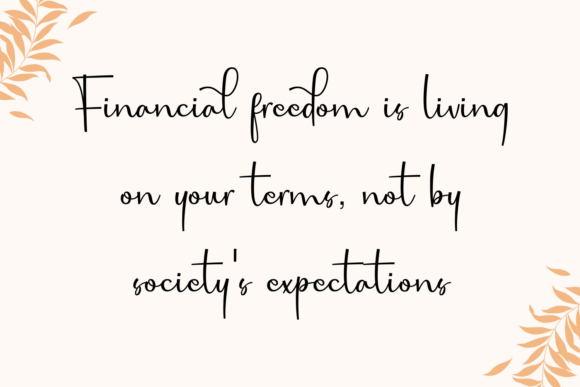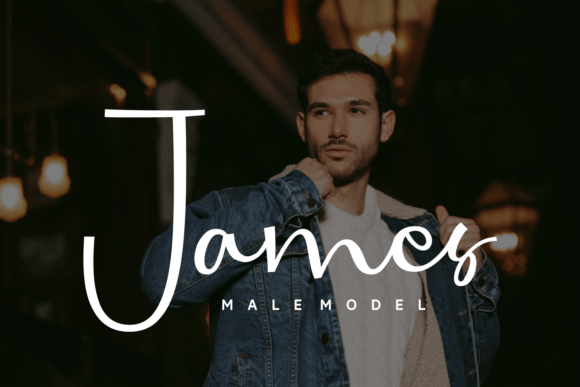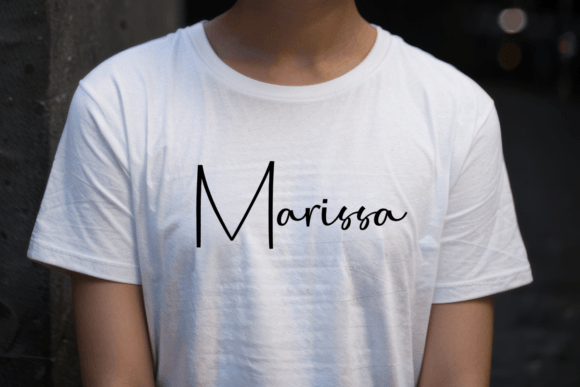
Introduction to Holiday Today Font
Holiday Today is a cheerful and lively handwritten font that captures the spirit of celebration and relaxation.
Its playful strokes and fluid style make it perfect for holiday-themed projects, greeting cards, event invitations, and social media designs Add a touch of fun and warmth to your creative work with this versatile and eye-catching script font.
Key Features of Holiday Today Font